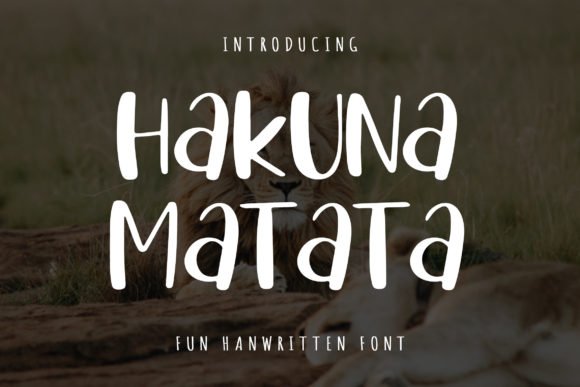
The Perfect Distraction: Finding Inspiration in a Font
Do you ever find yourself stuck in a creative rut, desperately searching for that one spark to ignite your next project? Maybe you’re brainstorming ideas for a new branding campaign or working on a design piece that’s just not quite hitting the mark. Whatever the case, it’s in these moments that we often turn to our trusted font libraries for a little inspiration.
Enter the Hakuna Matata Font, a refreshing display font designed to bring a breath of fresh air to your designs. With its cool, neat aesthetic, this font has the potential to elevate any creation, regardless of the topic or theme. Whether you’re a seasoned designer or just starting out, the Hakuna Matata Font is an incredible asset to add to your library.
Hakuna Matata Font Key Features
- Font Family: Hakuna Matata Font is a sans-serif font family designed to evoke a carefree and playful spirit.
- Unique Characteristics: Features a distinctive rounded edge design, with subtle variations in letterform shapes to create a friendly and approachable feel.
- Character Set: Includes a comprehensive character set, covering Latin, Cyrillic, and Greek alphabets, as well as a range of punctuation and symbol glyphs.
Hakuna Matata Font Review
I recently had the chance to work with the Hakuna Matata Font, and I must say it’s a unique and refreshing addition to any design project. Here are my thoughts on what works well and what doesn’t.
- Playful and fun vibe: The Hakuna Matata Font is perfect for designs that need a carefree and lighthearted tone. It’s great for branding, social media, and even children’s content.
- Highly customizable: The font offers a wide range of style options, from bold to italic, making it easy to adapt to different design contexts.
- Good legibility: Despite its quirky appearance, the font is surprisingly easy to read, even at smaller sizes.
- Limited font weight options: While the font offers various styles, the weight options are somewhat limited, which can make it less versatile for certain design projects.
- May not be suitable for formal designs: The Hakuna Matata Font is best suited for casual, creative projects. It may not be the best choice for formal or professional designs.
Overall, I think the Hakuna Matata Font is a great addition to any designer’s toolkit. While it has some limitations, its unique style and high level of customization make it a great choice for designers who want to add some personality to their projects.
The Hakuna Matata Font is ideal for creating fun, playful, and creative designs. It’s perfect for:
- Children’s books and educational materials.
- Party invitations and decorations.
- Brand logos and marketing materials.
- Artistic projects and graphic designs.